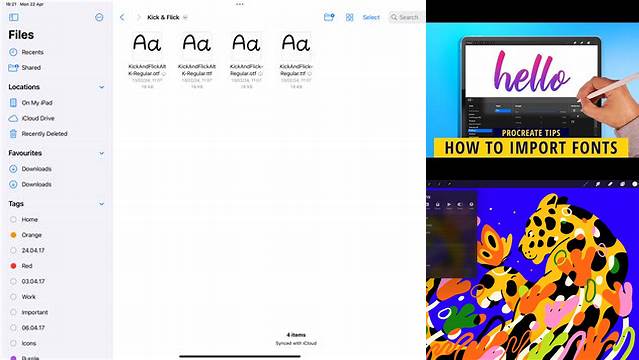
Import Fonts To Procreate: Easy Guide
Hey guys! Ever wanted to spice up your Procreate artwork with some cool, custom fonts? You're in the right place! This guide will walk you through everything you need to know about importing downloaded fonts into Procreate, making your creative process smoother and more fun. Let’s dive in!
1. Understanding Procreate Fonts
Before we jump into importing, let's quickly understand how Procreate handles fonts. Procreate uses the fonts installed on your iPad. This means that to use a font in Procreate, it first needs to be installed at the system level. This might sound a bit technical, but don't worry, it's easier than you think! Understanding this foundational aspect ensures that you approach the font importing process with the right mindset and expectations. So, basically, any font you want to use has to be available to your entire iPad, not just Procreate. This ensures seamless integration across all apps that support custom fonts. It's also worth noting that Procreate supports both TrueType (.ttf) and OpenType (.otf) font formats, which are the most common types you'll encounter. So, whether you've downloaded a sleek, modern sans-serif or an elegant, classic serif, Procreate has got you covered. Keep in mind that the quality of the font file itself can impact how it appears in Procreate. Always download fonts from reputable sources to avoid issues like pixelation or incorrect rendering. With a solid understanding of how Procreate uses fonts, you're well-prepared to dive into the exciting world of font importing and unleash your creative potential!
2. Finding and Downloading Fonts for Procreate
Finding the perfect font is like discovering the ideal seasoning for your creative dish! Numerous websites offer a wide variety of fonts, both free and premium. Some popular sources include Google Fonts, DaFont, FontSpace, and Creative Market. When downloading, make sure the font is compatible with your iPad and that you're downloading it from a reputable site to avoid any nasty surprises like malware. Always check the font license to ensure you're allowed to use it for your intended purpose, especially if you're planning to use it commercially. Google Fonts is a fantastic resource for free, high-quality fonts that are licensed for both personal and commercial use. DaFont and FontSpace also offer a vast selection of free fonts, but it's essential to double-check the license for each font, as they can vary. If you're looking for something truly unique and professional, Creative Market is a great place to explore premium fonts crafted by talented designers. When browsing for fonts, consider the overall style and tone you want to convey in your artwork. A playful, handwritten font might be perfect for a children's illustration, while a bold, geometric font could be ideal for a striking poster design. With a little bit of searching, you're sure to find the perfect font to elevate your Procreate creations and bring your artistic vision to life!
3. Installing Fonts on Your iPad
Okay, you've found your dream font! Now, let's get it onto your iPad. The most straightforward method involves using a font installation app. There are several great options available on the App Store, such as iFont, AnyFont, and Fonteer. Download one of these apps, and then follow its instructions to install the font file you downloaded earlier. These apps essentially create a configuration profile that allows your iPad to recognize and use the new font. Generally, the process involves opening the font file within the app, and the app will then guide you through the installation process. You'll likely need to grant the app permission to install the configuration profile in your iPad's settings. Don't worry; this is a standard procedure and perfectly safe as long as you're using a reputable font installation app. Once the profile is installed, the font should be available for use across all apps on your iPad, including Procreate. If you're having trouble finding the font in Procreate after installation, try restarting the app or even your iPad. This can sometimes help refresh the font list and ensure that the new font is properly recognized. With your font successfully installed, you're ready to unleash its creative potential and add a touch of personalized typography to your Procreate masterpieces!
4. Using Fonts in Procreate
Now for the fun part! Open Procreate and create or open a canvas. Tap the wrench icon (Actions), then tap "Add," and finally, tap "Add Text." A text box will appear on your canvas. Tap the text box, and the keyboard will pop up. Above the keyboard, you'll see a font selection menu. Tap on it, and you'll see a list of all the fonts installed on your iPad, including the one you just installed! Select your new font, type your text, and adjust the size, color, and other settings to your liking. Procreate offers a range of text formatting options, allowing you to fine-tune the appearance of your text to perfectly match your artistic vision. You can adjust the kerning (the spacing between individual letters), the tracking (the overall spacing between all letters), and the leading (the spacing between lines of text). Experiment with different font sizes and colors to create visually appealing text layouts that complement your artwork. Procreate also allows you to warp and distort text, adding even more creative possibilities. With a little bit of practice, you'll be able to seamlessly integrate text into your Procreate creations and elevate your artwork to new heights! So go ahead, unleash your inner typographer and let your words speak volumes in your digital masterpieces!
5. Troubleshooting Font Issues in Procreate
Sometimes things don't go as planned, right? If you're having trouble with your fonts in Procreate, don't panic! First, double-check that the font is actually installed on your iPad. Go to your iPad's Settings app, then tap "General," then "Fonts." You should see a list of all installed fonts. If your font isn't there, go back and reinstall it using your font installation app. If the font is installed but not showing up in Procreate, try restarting Procreate and your iPad. Sometimes, a simple restart can resolve these kinds of glitches. Also, make sure you're using a compatible font format (.ttf or .otf). If you're still having trouble, it's possible that the font file is corrupted. Try downloading the font again from a different source. As a last resort, you can try contacting Procreate support or searching online forums for solutions. Many users have encountered similar issues and may have helpful tips or workarounds. Remember, troubleshooting is a normal part of the creative process, and with a little bit of patience, you'll be able to overcome any font-related challenges and get back to creating amazing artwork in Procreate! So don't give up, keep experimenting, and don't be afraid to ask for help when you need it. With a little bit of perseverance, you'll be a Procreate font master in no time!
6. Font Management Tips for Procreate
As you start downloading more and more fonts, it's essential to keep things organized. A good font management strategy can save you time and frustration in the long run. Consider creating folders on your iPad to categorize your fonts by style, project, or designer. This will make it easier to find the right font when you need it. Also, be mindful of the number of fonts you install. While it's tempting to download every font you come across, having too many fonts can slow down your iPad and make it harder to find the ones you actually use. Regularly review your installed fonts and remove any that you no longer need. Font installation apps often provide tools for managing and organizing your fonts, so take advantage of these features. You can also use cloud storage services like iCloud Drive or Dropbox to back up your font collection, ensuring that you don't lose your precious fonts if something happens to your iPad. By implementing a few simple font management tips, you can keep your Procreate workflow smooth and efficient, allowing you to focus on what matters most: creating amazing art! So take a few minutes to organize your fonts, and you'll thank yourself later when you're effortlessly finding the perfect font for your next Procreate masterpiece.
7. Best Font Combinations for Procreate
Choosing the right font combination can make a huge difference in the overall look and feel of your artwork. A well-chosen font pairing can create visual harmony and enhance the message you're trying to convey. When combining fonts, it's generally a good idea to pair a display font (a more decorative and eye-catching font) with a simpler, more readable body font. For example, you could pair a bold, handwritten font with a classic sans-serif font like Open Sans or Montserrat. Alternatively, you could pair a elegant serif font like Playfair Display with a clean sans-serif font like Lato. The key is to create contrast while maintaining balance. Avoid pairing fonts that are too similar, as this can create a sense of visual monotony. Also, be mindful of the overall tone and style of your artwork. A playful illustration might call for a whimsical font pairing, while a more serious design might require a more sophisticated and professional font combination. Experiment with different font pairings until you find something that feels just right. There are many online resources that offer font pairing suggestions and inspiration, so don't be afraid to explore and try new things. With a little bit of experimentation, you'll be able to master the art of font pairing and create visually stunning typography in your Procreate creations!
8. Free Font Resources for Procreate Artists
For Procreate artists on a budget, there are tons of amazing free font resources available online. Google Fonts is a fantastic starting point, offering a vast library of high-quality, open-source fonts that are free for both personal and commercial use. DaFont and FontSpace are also great options, with a wide selection of free fonts to choose from. However, it's important to double-check the license for each font, as they can vary. Some fonts may only be free for personal use, while others may have restrictions on commercial use. Another great resource is Font Squirrel, which offers a curated collection of free fonts that are licensed for commercial use. When browsing free font resources, be sure to pay attention to the quality of the fonts. Some free fonts may be poorly designed or lack essential features like kerning or ligatures. Look for fonts that are well-crafted and offer a full character set. With a little bit of searching, you can find tons of amazing free fonts to enhance your Procreate artwork without breaking the bank! So go ahead and explore these resources and discover the perfect free fonts to bring your creative visions to life.
9. Premium Font Options for Procreate Professionals
If you're a professional Procreate artist, investing in premium fonts can be a great way to elevate your work and stand out from the crowd. Premium fonts often offer superior quality, more extensive character sets, and unique design details that you won't find in free fonts. Creative Market and MyFonts are two popular marketplaces for premium fonts, offering a wide selection of fonts from talented designers around the world. When choosing premium fonts, consider the overall style and tone you want to convey in your artwork. Look for fonts that are well-crafted, versatile, and offer a full range of weights and styles. It's also important to check the font license to ensure that you're allowed to use it for your intended purpose, especially if you're planning to use it commercially. Investing in premium fonts can be a significant expense, but it can be well worth it if you're serious about your Procreate art. High-quality fonts can add a touch of professionalism and sophistication to your work, helping you to attract clients and command higher prices for your services. So if you're ready to take your Procreate art to the next level, consider investing in some premium fonts and discover the difference they can make!
10. Creating Custom Fonts for Procreate
For the ultimate level of personalization, you can even create your own custom fonts for Procreate! This is a more advanced technique, but it can be incredibly rewarding if you want to create a truly unique and distinctive look for your artwork. There are several font creation apps available for the iPad, such as Fontastic and iFontMaker. These apps allow you to draw each letterform individually, giving you complete control over the design of your font. Creating a custom font can be a time-consuming process, but it's a great way to express your creativity and develop your own signature style. You can create fonts that are based on your own handwriting, or you can experiment with different letterforms and design elements to create something completely new and original. Once you've created your custom font, you can install it on your iPad using a font installation app, just like you would with any other downloaded font. Then, you can use your custom font in Procreate to add a personal touch to your artwork. Creating custom fonts is a great way to stand out from the crowd and create a truly unique and memorable visual identity for your brand or personal artwork. So if you're feeling ambitious, give it a try and see what you can create!
11. Font Licensing Explained
Understanding font licensing is crucial, especially if you plan to use your Procreate artwork for commercial purposes. Font licenses dictate how you're allowed to use a particular font. Some fonts are free for personal use but require a commercial license if you're using them to create artwork that you're selling. Other fonts may have more restrictive licenses that limit how you can modify or distribute them. It's essential to read the font license carefully before using a font in your Procreate artwork, to ensure that you're complying with the terms of the license. If you're unsure about the terms of a particular license, it's always best to err on the side of caution and contact the font designer or distributor for clarification. Using a font without the proper license can lead to legal issues, so it's always better to be safe than sorry. There are several different types of font licenses, including desktop licenses, web licenses, and app licenses. Each type of license grants you different rights and permissions. Desktop licenses are typically used for creating artwork that will be printed or displayed on a computer screen. Web licenses are used for embedding fonts on websites. App licenses are used for embedding fonts in mobile apps. Make sure you choose the right type of license for your intended use. Font licensing can be confusing, but it's an important aspect of using fonts in your Procreate artwork. Take the time to understand the different types of licenses and make sure you're complying with the terms of the licenses for the fonts you're using.
12. Kerning and Tracking in Procreate
Kerning and tracking are two essential typographic concepts that can greatly impact the readability and visual appeal of your text in Procreate. Kerning refers to the adjustment of the space between individual letter pairs. Some letter pairs, such as "AV" or "WA," may appear to have too much or too little space between them, which can make the text look uneven or unbalanced. Kerning allows you to fine-tune the spacing between these letter pairs to create a more visually harmonious appearance. Tracking, on the other hand, refers to the overall spacing between all the letters in a word or line of text. Adjusting the tracking can make the text appear more open and airy, or more compact and dense. In Procreate, you can adjust the kerning and tracking of your text using the text editing tools. Experiment with different kerning and tracking settings to see how they affect the appearance of your text. Pay attention to the overall balance and readability of the text, and make adjustments as needed. Mastering kerning and tracking can take some practice, but it's well worth the effort. By paying attention to these details, you can create typography that is both visually appealing and easy to read. So take the time to learn about kerning and tracking, and use these techniques to enhance your Procreate artwork.
13. Leading and Line Height in Procreate
Leading, also known as line height, refers to the vertical spacing between lines of text. Adjusting the leading can greatly impact the readability and visual appeal of your text in Procreate. Too little leading can make the text appear cramped and difficult to read, while too much leading can make the text feel disconnected and disjointed. The ideal leading depends on the font size, font style, and the overall design of your artwork. In general, a leading value that is slightly larger than the font size is a good starting point. For example, if you're using a 12-point font, a leading value of 14 or 15 points might be appropriate. However, you may need to adjust the leading further depending on the specific font and the overall design. In Procreate, you can adjust the leading of your text using the text editing tools. Experiment with different leading settings to see how they affect the appearance of your text. Pay attention to the readability of the text, and make adjustments as needed. You can also use different leading values for different sections of text to create visual interest and hierarchy. For example, you might use a larger leading value for headings and a smaller leading value for body text. Mastering leading is an essential skill for any Procreate artist who wants to create professional-looking typography. So take the time to experiment with different leading settings and learn how to use this technique to enhance your artwork.
14. Using Text as a Design Element in Procreate
Text isn't just for writing; it can also be a powerful design element in Procreate. Think about using text in creative ways to enhance your artwork. You can warp, distort, and manipulate text to create interesting shapes and patterns. Experiment with different font sizes, colors, and styles to create visual contrast and hierarchy. You can also use text as a background element, repeating words or phrases to create a texture or pattern. Another fun technique is to use text to create masks or silhouettes. For example, you could use a word or phrase to mask out a portion of an image, revealing a hidden layer beneath. The possibilities are endless! When using text as a design element, it's important to consider the overall message and tone of your artwork. Choose fonts and styles that complement the overall aesthetic. Also, be mindful of readability. While it's fun to experiment with creative text effects, make sure that the text is still legible, especially if it's conveying important information. Using text as a design element can add a unique and personal touch to your Procreate artwork. So don't be afraid to experiment and try new things. With a little creativity, you can transform ordinary text into extraordinary works of art!
15. Creating Text-Based Illustrations in Procreate
Take your text skills to the next level by creating entire illustrations using only text! This is a fun and challenging exercise that can help you develop your typography skills and explore new creative possibilities. Start by choosing a subject for your illustration. It could be anything from a portrait of a person to a landscape scene. Then, choose a font or a combination of fonts that you think would be appropriate for your subject. Experiment with different font sizes, styles, and colors to create visual contrast and depth. Use individual letters, words, or phrases to create the shapes and forms of your illustration. You can warp, distort, and manipulate the text to create different textures and patterns. Pay attention to the details and try to capture the essence of your subject using only text. Creating text-based illustrations can be a time-consuming process, but it's a great way to challenge yourself and push your creative boundaries. It's also a great way to develop your typography skills and learn how to use text in new and innovative ways. So if you're looking for a fun and challenging project, give text-based illustrations a try!
16. Importing Fonts from iCloud Drive to Procreate
If you store your fonts on iCloud Drive, importing them into Procreate is a breeze. First, make sure that your fonts are saved in a folder on your iCloud Drive that is accessible from your iPad. Then, open Procreate and tap the wrench icon (Actions), then tap "Add," and finally, tap "Add Text." When the keyboard pops up, tap the font selection menu. In the font selection menu, you should see an option to import fonts from iCloud Drive. Tap this option, and you'll be able to browse your iCloud Drive and select the font files that you want to import. Procreate will then install the fonts on your iPad, and they'll be available for use in your artwork. Importing fonts from iCloud Drive is a convenient way to keep your font collection organized and accessible across all of your devices. It's also a great way to share fonts with other Procreate artists. So if you're using iCloud Drive to store your fonts, be sure to take advantage of this convenient import feature.
17. Using Google Fonts with Procreate
Google Fonts is a treasure trove of free, high-quality fonts that you can use in your Procreate artwork. The best part is that all Google Fonts are open-source and licensed for both personal and commercial use, so you don't have to worry about any licensing issues. To use Google Fonts with Procreate, simply download the font files from the Google Fonts website. Make sure you download the .ttf or .otf version of the font, as these are the formats that are compatible with Procreate. Once you've downloaded the font files, you can install them on your iPad using a font installation app, as described earlier in this guide. After the fonts are installed, they'll be available for use in Procreate, just like any other font. Google Fonts offers a wide variety of fonts in different styles and weights, so you're sure to find something that suits your needs. You can browse the Google Fonts website to find the perfect fonts for your Procreate artwork. Google Fonts is a great resource for Procreate artists who are looking for free, high-quality fonts.
18. Creating a Font Style Guide for Procreate Projects
For larger Procreate projects, it's a good idea to create a font style guide. This will help you maintain consistency and ensure that your typography is cohesive throughout the project. A font style guide should include a list of the fonts you're using, along with information about their intended use, size, color, and other formatting details. It should also include examples of how the fonts are used in different contexts. Creating a font style guide can help you avoid making inconsistent design choices and ensure that your typography is always on-brand. It can also save you time in the long run, as you won't have to make the same decisions over and over again. When creating a font style guide, it's important to consider the overall message and tone of your project. Choose fonts that are appropriate for the subject matter and that complement the overall aesthetic. Also, be mindful of readability. Make sure that the fonts are easy to read, especially in smaller sizes. A well-crafted font style guide can greatly improve the quality and professionalism of your Procreate projects.
19. Best Practices for Using Fonts in Digital Art
Using fonts effectively in digital art requires a thoughtful approach. Here are some best practices to keep in mind: Prioritize readability. Choose fonts that are easy to read, especially in smaller sizes. Avoid using overly decorative or stylized fonts for body text. Create visual hierarchy. Use different font sizes, weights, and styles to create a clear visual hierarchy. This will help guide the viewer's eye and make the text easier to understand. Use contrast effectively. Use contrasting font colors and backgrounds to make the text stand out. Avoid using colors that are too similar, as this can make the text difficult to read. Be consistent. Use the same fonts and styles consistently throughout your artwork. This will help create a cohesive and professional look. Pay attention to kerning and tracking. Adjust the kerning and tracking of your text to create a more visually harmonious appearance. Don't be afraid to experiment. Try different fonts and styles to see what works best for your artwork. There are no hard and fast rules when it comes to typography, so don't be afraid to break the mold and try something new. By following these best practices, you can use fonts effectively to enhance your digital art and communicate your message clearly and effectively.
20. Common Font Mistakes to Avoid in Procreate
Even experienced designers can make mistakes when using fonts. Here are some common font mistakes to avoid in Procreate: Using too many fonts. Stick to a maximum of two or three fonts per project. Using too many fonts can make your artwork look cluttered and unprofessional. Using fonts that are too similar. Choose fonts that are different enough to create visual contrast. Using fonts that are difficult to read. Avoid using overly decorative or stylized fonts for body text. Ignoring kerning and tracking. Pay attention to the spacing between letters and adjust it as needed. Using the wrong font size. Choose a font size that is appropriate for the context. Using the wrong font color. Choose a font color that contrasts well with the background. Not considering the overall tone of the artwork. Choose fonts that are appropriate for the subject matter and that complement the overall aesthetic. By avoiding these common font mistakes, you can create typography that is both visually appealing and effective.
21. Finding Inspiration for Typography in Procreate
Stuck in a font rut? Here's how to find inspiration for typography in Procreate: Explore online design galleries. Websites like Dribbble and Behance showcase the work of talented designers from around the world. Look for examples of typography that you find inspiring and try to emulate their techniques. Follow typography-focused social media accounts. There are many Instagram and Twitter accounts that are dedicated to showcasing beautiful and innovative typography. Follow these accounts to stay up-to-date on the latest trends and techniques. Study the work of master typographers. Read books and articles about the history of typography and the work of famous typographers. This will give you a deeper understanding of the principles of good typography and inspire you to create your own unique designs. Experiment with different fonts and styles. Don't be afraid to try new things. The best way to find inspiration is to simply experiment with different fonts and styles until you find something that you love. Visit museums and galleries. Look for examples of typography in paintings, sculptures, and other works of art. This can give you a new perspective on the possibilities of typography. By exploring these different sources of inspiration, you can break out of your creative rut and discover new and exciting ways to use typography in your Procreate artwork.
22. Exporting Procreate Art with Correct Font Rendering
Ensuring your fonts render correctly when exporting from Procreate is crucial. Here’s how: Rasterize your text layers. Before exporting, rasterize your text layers to convert them into images. This will ensure that the fonts are rendered correctly, even if the recipient doesn't have the same fonts installed. Choose the right file format. When exporting, choose a file format that supports embedded fonts, such as PDF. This will ensure that the fonts are embedded in the file and will render correctly on any device. Outline your fonts. Another option is to outline your fonts, which converts them into vector shapes. This will ensure that the fonts are rendered correctly, even if the recipient doesn't have the same fonts installed. Test your exported files. Before sharing your exported files, test them on different devices and platforms to make sure that the fonts are rendering correctly. By following these tips, you can ensure that your fonts are rendered correctly when exporting from Procreate.
23. Advanced Text Effects in Procreate
Take your text to the next level with advanced effects! Try these: Shadow and glow effects. Use shadow and glow effects to add depth and dimension to your text. Gradient fills. Use gradient fills to create visually interesting and dynamic text. Textures and patterns. Apply textures and patterns to your text to add visual interest and realism. Clipping masks. Use clipping masks to confine your text to specific shapes or areas. Warping and distortion. Use warping and distortion tools to create unique and unusual text effects. 3D effects. Use 3D effects to create the illusion of depth and perspective. By experimenting with these advanced text effects, you can create typography that is both visually stunning and highly impactful.
24. Animating Text in Procreate
Bring your text to life with animation! Here's how to animate text in Procreate: Use the animation assist feature. Procreate's animation assist feature makes it easy to create simple animations. Create frame-by-frame animations. For more complex animations, you can create frame-by-frame animations. Use motion blur. Use motion blur to create a sense of movement. Experiment with different animation styles. Try different animation styles, such as stop-motion animation, flip-book animation, and rotoscoping. By animating your text, you can create dynamic and engaging visuals that will capture the attention of your audience.
25. Accessibility Considerations for Fonts in Procreate
Make your designs accessible to everyone by considering these points: Choose legible fonts. Select fonts that are easy to read for people with visual impairments. Use sufficient contrast. Ensure there's enough contrast between text and background colors. Provide alternative text. Add alternative text descriptions for images with text. Avoid using too much text. Keep text concise and easy to understand. Use proper heading structures. Organize content with clear headings for screen readers. By following these guidelines, you can create more inclusive and accessible designs in Procreate.
26. Keyboard Shortcuts for Text Editing in Procreate
Speed up your workflow with these keyboard shortcuts: Double-tap for quick text selection. Use cmd+A to select all text. Use cmd+B for bold, cmd+I for italics. Use cmd+shift+> or < to increase or decrease font size. Use option+left/right arrow to adjust kerning. Mastering these shortcuts can significantly improve your text editing efficiency in Procreate.
27. The Psychology of Fonts: Choosing the Right Mood
Fonts evoke emotions! Understand their psychology: Serifs convey tradition, formality. Sans-serifs feel modern, clean. Script fonts add elegance, personality. Display fonts grab attention, but use sparingly. Color and size also impact mood. Choosing wisely enhances your message's impact.
28. Mixing Raster and Vector Text Techniques
Combine raster and vector for exciting results! Rasterize for textures, effects. Keep vector for scalability, clean lines. Use clipping masks to combine elements. Experiment to achieve unique visual styles in your Procreate designs.
29. Text Layout and Composition in Procreate
Master text layout for visual harmony: Use grids for alignment, structure. Consider hierarchy: size, weight, position. White space enhances readability, impact. Balance text with images for visual appeal. Experiment with different layouts to find the perfect composition.
30. Backing Up and Restoring Your Font Collection
Protect your precious fonts! Use iCloud Drive, Dropbox for backups. Create organized folders for easy restoration. Regularly backup to prevent data loss. Test restoration process to ensure functionality. A little preparation saves heartache later!
By following these steps and tips, you'll be a font-importing pro in no time! Happy creating, and may your Procreate artwork be filled with beautiful and unique typography!